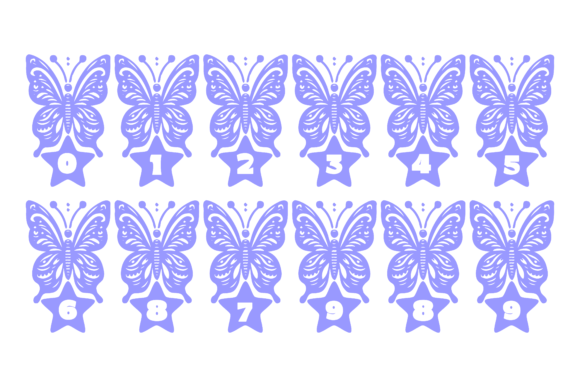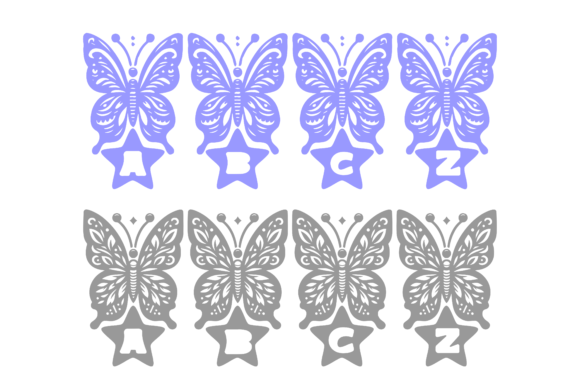
Unleash the Magic of Blue Butterfly Font: Elevate Your Designs with an Irresistible Allure
Are you a designer, crafter, or artist looking to add a touch of magic to your creations? Look no further than the enchanting Blue Butterfly font. This captivating font is designed to infuse your designs with an irresistible allure, making it the perfect adornment for any creative endeavor. With its mesmerizing charm, the Blue Butterfly font promises to transform your designs into stunning visual feasts that will leave your audience spellbound.
The Allure of Blue Butterfly Font
The Blue Butterfly font is more than just a typography – it’s an experience. Its enchanting charisma is woven into every curve and contour, making it a true masterpiece of font design. Whether you’re working on a graphic design project, crafting a handmade card, or creating digital art, this font is sure to add a touch of whimsy and wonder to your work.
One of the most striking features of the Blue Butterfly font is its delicate, dreamy quality. The letters seem to dance across the page, evoking the gentle flutter of a butterfly’s wings. This ethereal quality makes it perfect for designs that require a touch of elegance and sophistication, such as wedding invitations, branding materials, and packaging design.
Seamless Integration into Your Creations
The Blue Butterfly font is incredibly versatile, making it easy to integrate into a wide range of creative projects. Whether you’re working with digital design software or traditional crafting techniques, this font can be seamlessly incorporated into your work.
Tips for Using Blue Butterfly Font
To get the most out of the Blue Butterfly font, here are a few tips to keep in mind:
• Pair it with complementary fonts: The Blue Butterfly font is a statement piece, so it’s best to pair it with simpler fonts that won’t compete for attention. Consider pairing it with a clean sans-serif font, such as Arial or Helvetica, to create a striking contrast.
• Experiment with colors: The Blue Butterfly font is called “blue” for a reason – its delicate blue hue is one of its most striking features. However, don’t be afraid to experiment with different colors to find the perfect match for your design. Try pairing it with pastel shades, metallic colors, or even bold brights to create a unique look.
• Play with textures and patterns: The Blue Butterfly font looks stunning on its own, but it can also be paired with textures and patterns to add depth and interest. Try adding a subtle background texture or overlaying a pattern to create a more dynamic design.
Transforming Your Designs into Visual Feasts
The Blue Butterfly font has the power to transform your designs into stunning visual feasts that will captivate your audience. Its mesmerizing charm and enchanting charisma make it the perfect addition to any creative project.
Whether you’re designing a logo, creating a social media graphic, or crafting a handmade card, the Blue Butterfly font is sure to elevate your work to the next level. Its delicate, dreamy quality makes it perfect for designs that require a touch of elegance and sophistication, while its versatility makes it easy to integrate into a wide range of creative projects.
In conclusion, the Blue Butterfly font is a true gem in the world of typography. Its enchanting charisma, delicate quality, and mesmerizing charm make it the perfect addition to any creative project. Whether you’re a designer, crafter, or artist, this font promises to infuse your designs with an irresistible allure that will leave your audience spellbound.